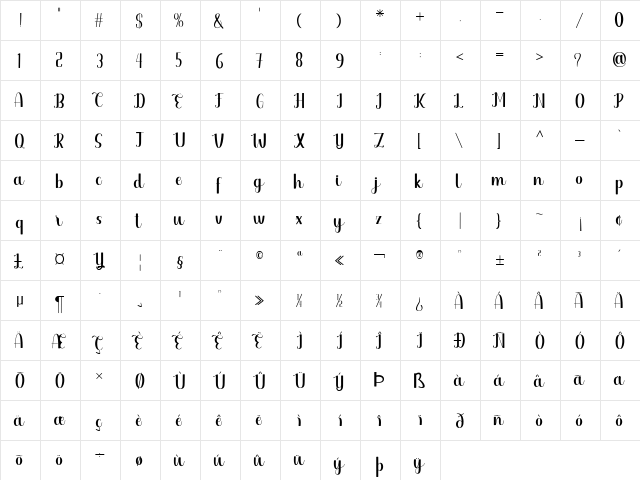
Gerniela Regular
Design Context for Gerniela Typeface
Gerniela is a composed and adaptable typeface that performs quietly and consistently across a wide range of design contexts.